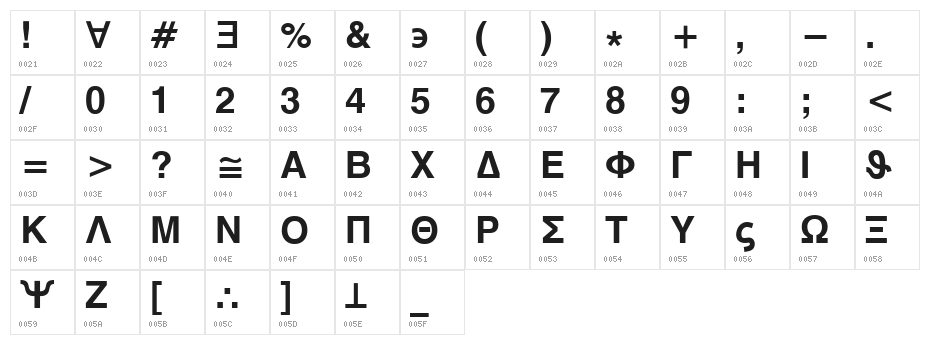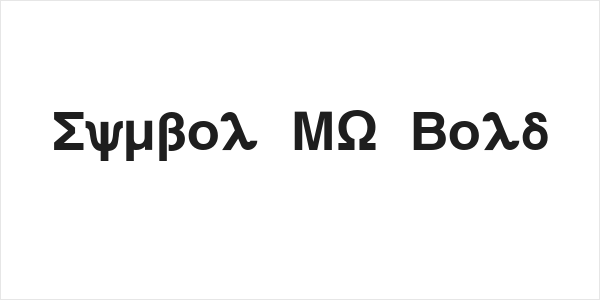
Symbol MW Bold Font
Symbol MW Bold Description
This font features a bold and geometric design, characterized by its uniform line thickness and structured appearance. The characters are crafted with precision, offering a modern and clean aesthetic. The uppercase letters are distinct and easily recognizable, while the lowercase letters maintain a consistent style that complements the overall design. The numerals are straightforward, ensuring clarity and readability. Special characters are included, providing versatility for various uses. The font's boldness makes it suitable for impactful statements and attention-grabbing headlines.